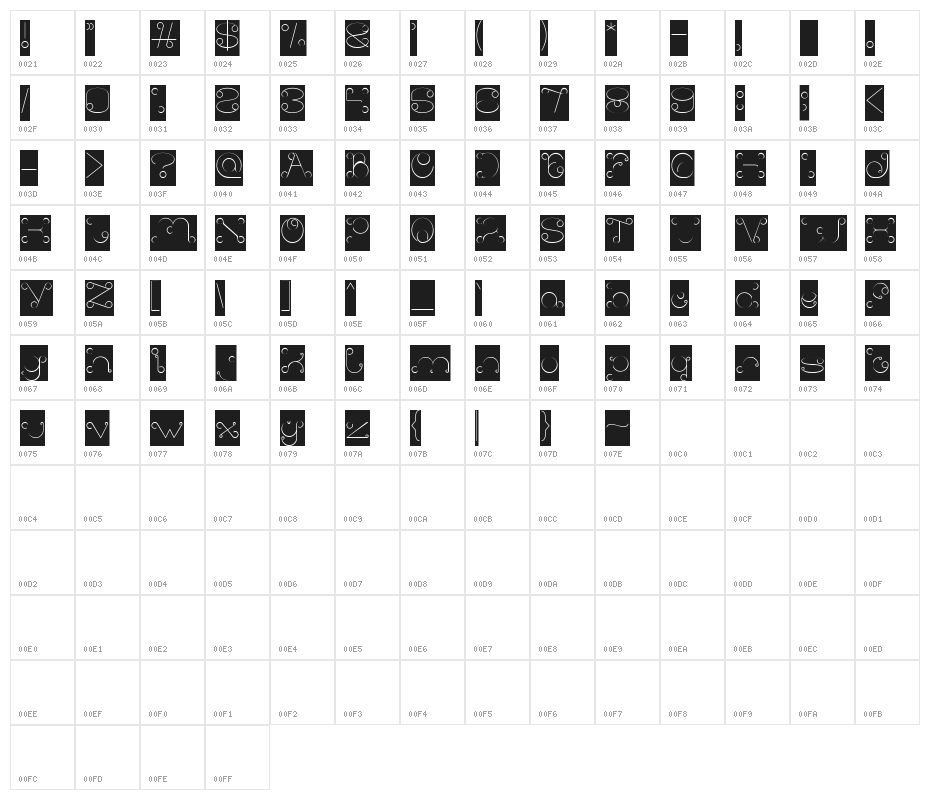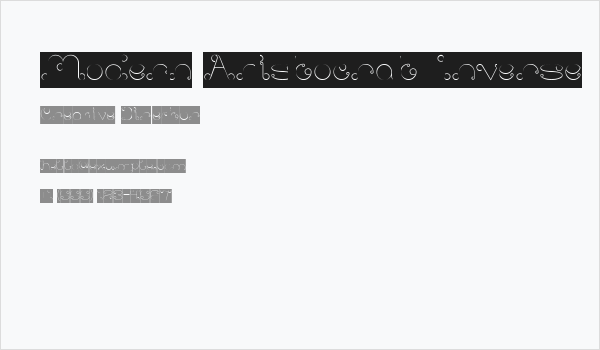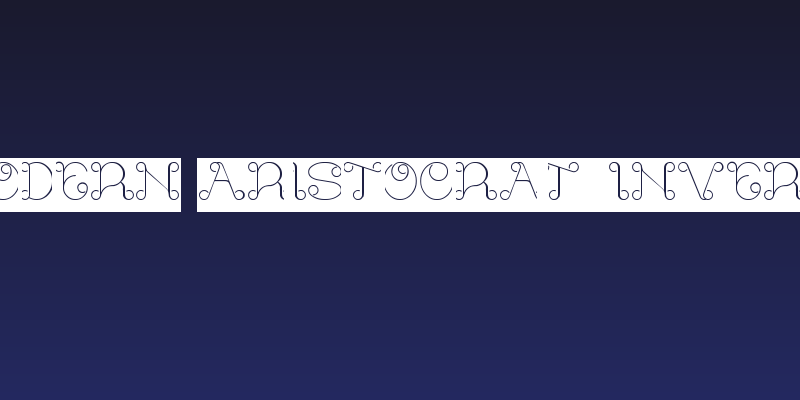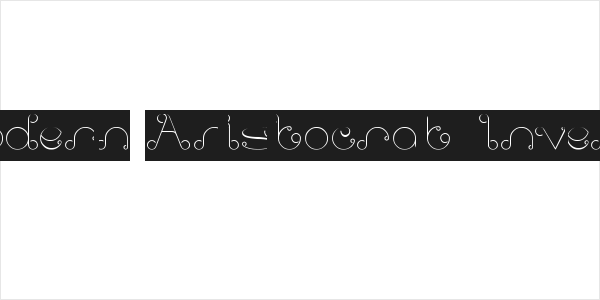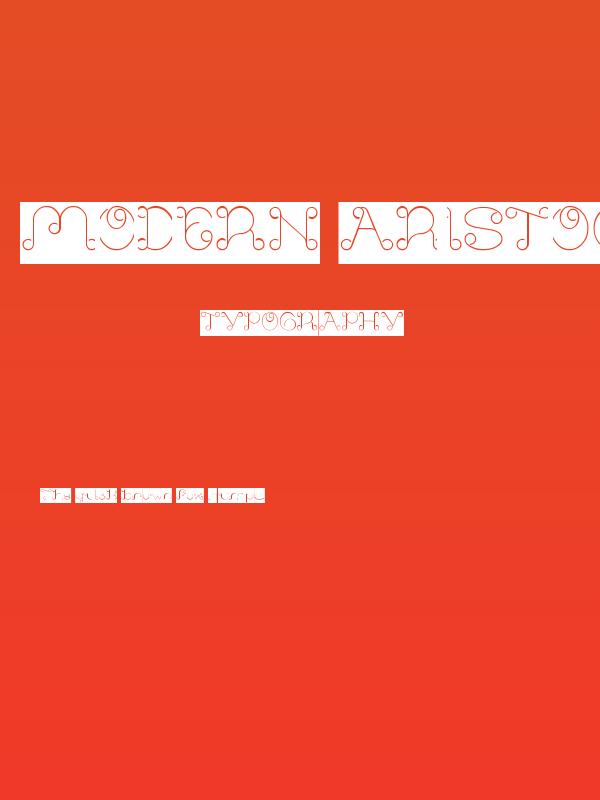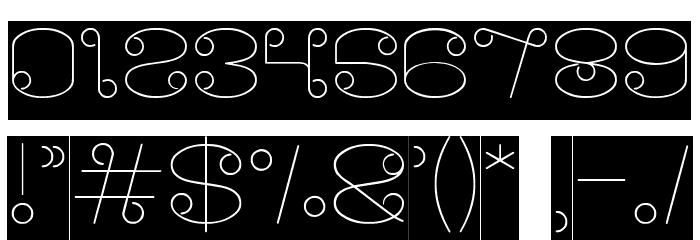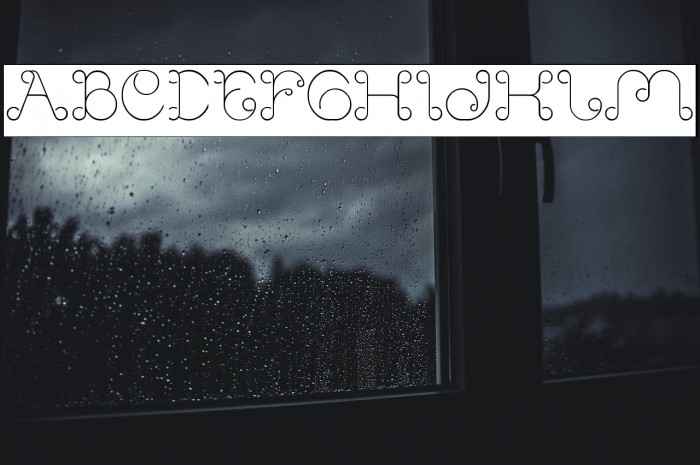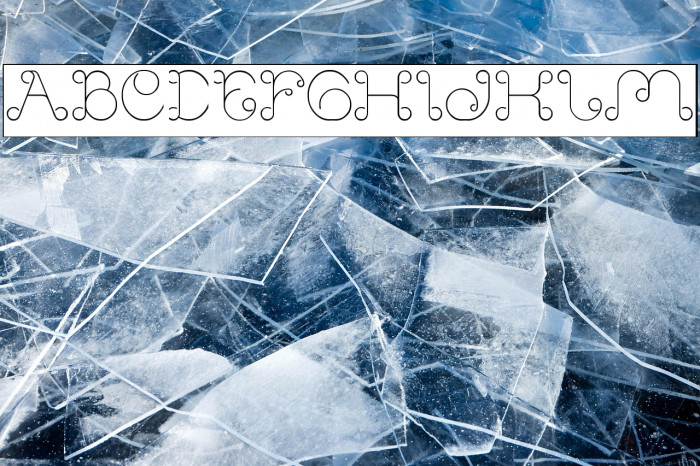
Modern Aristocrat-Inverse Font
Modern Aristocrat-Inverse Description
This font features an elegant and intricate design, characterized by its swirling, decorative elements that give each letter a unique and artistic flair. The letters are composed of thin, continuous lines that loop and curve, creating a sense of movement and sophistication. The uppercase and lowercase letters maintain a consistent style, with each character exhibiting a playful yet refined aesthetic. The numerals and special characters follow the same ornate design, ensuring a cohesive look across all text. This font's distinctive style makes it ideal for projects that require a touch of elegance and creativity.
| Use Case | Logos, Invitations, Artistic Displays |
| Proposed Projects | Ideal for wedding invitations, luxury branding, artistic posters, and high-end product packaging. |